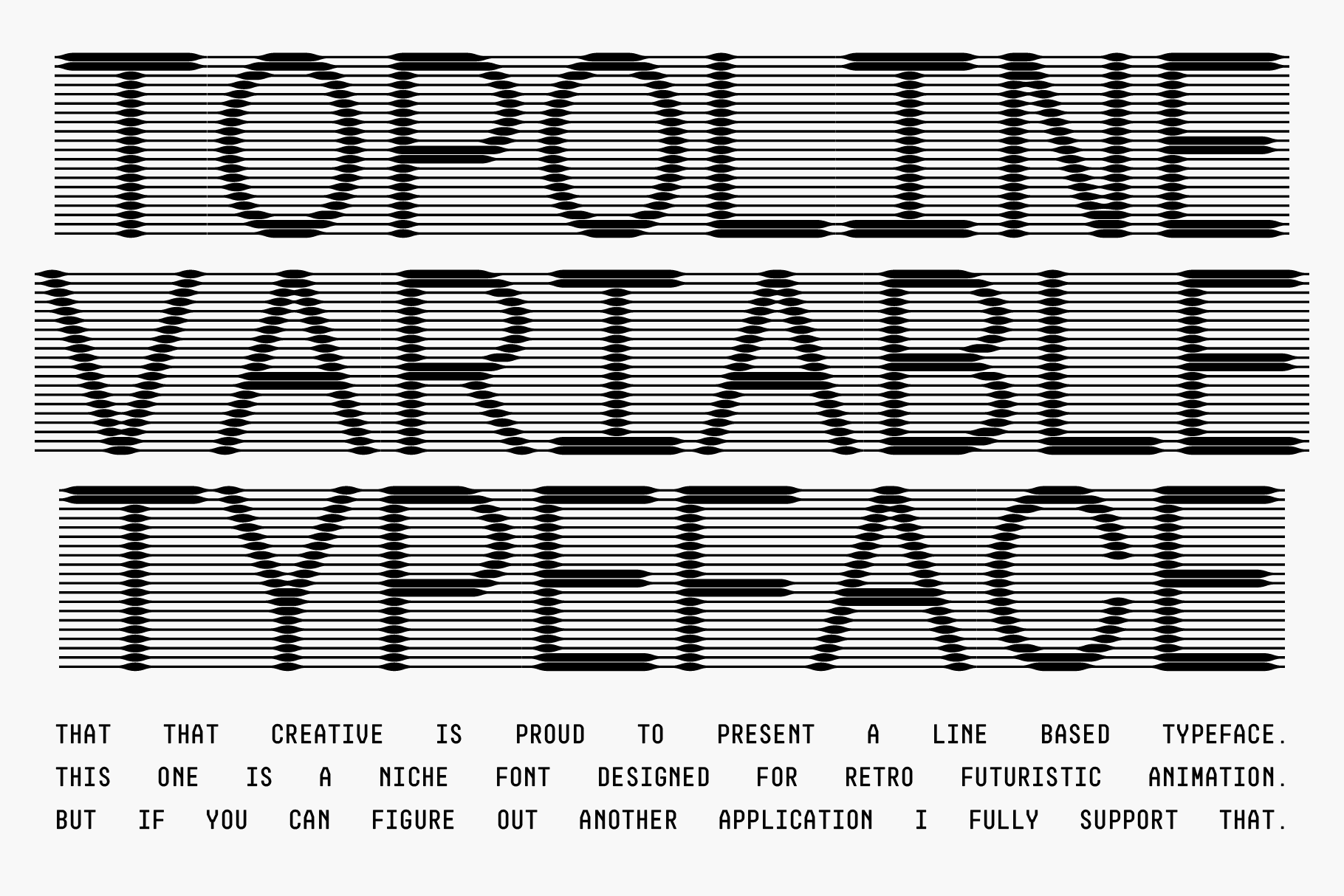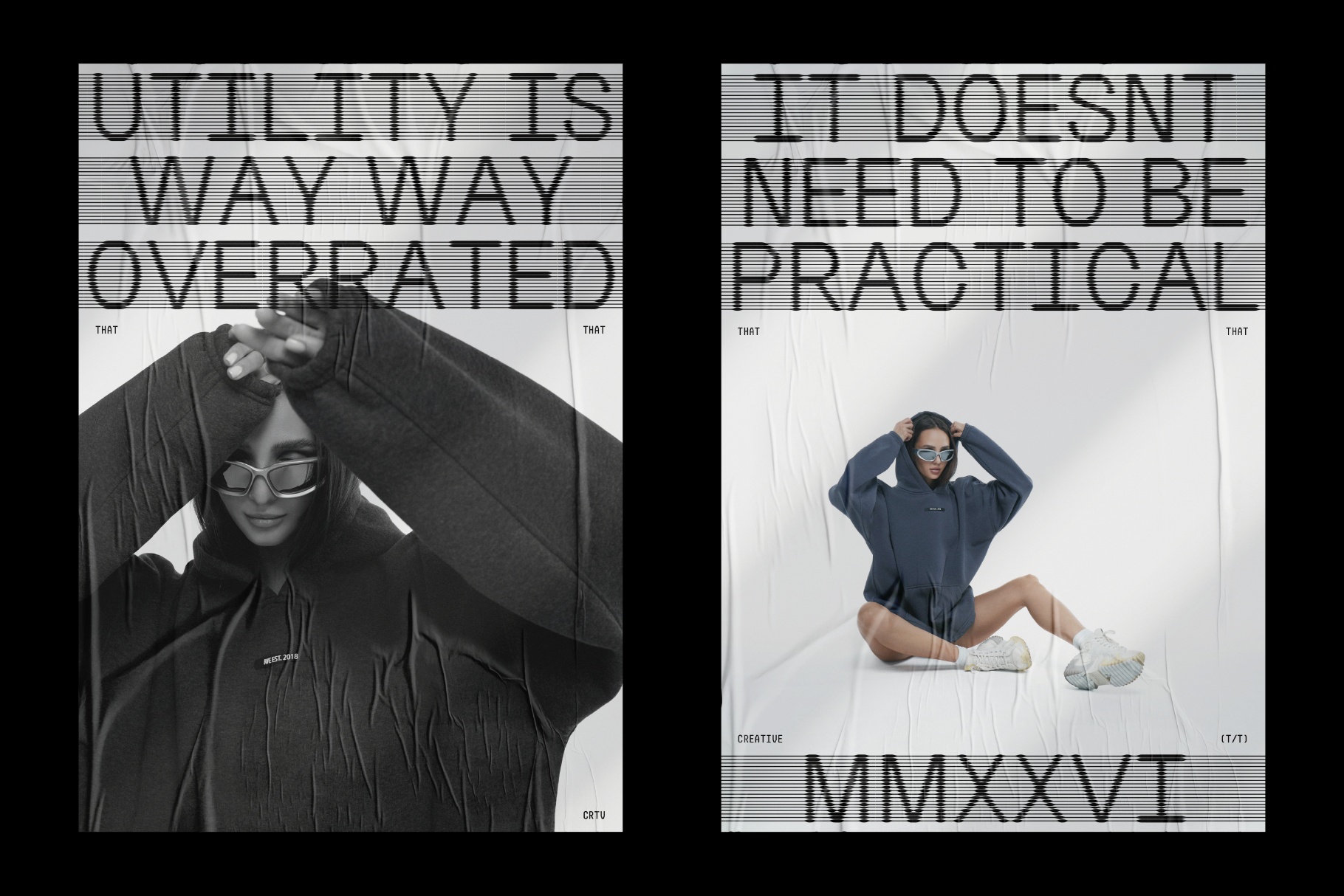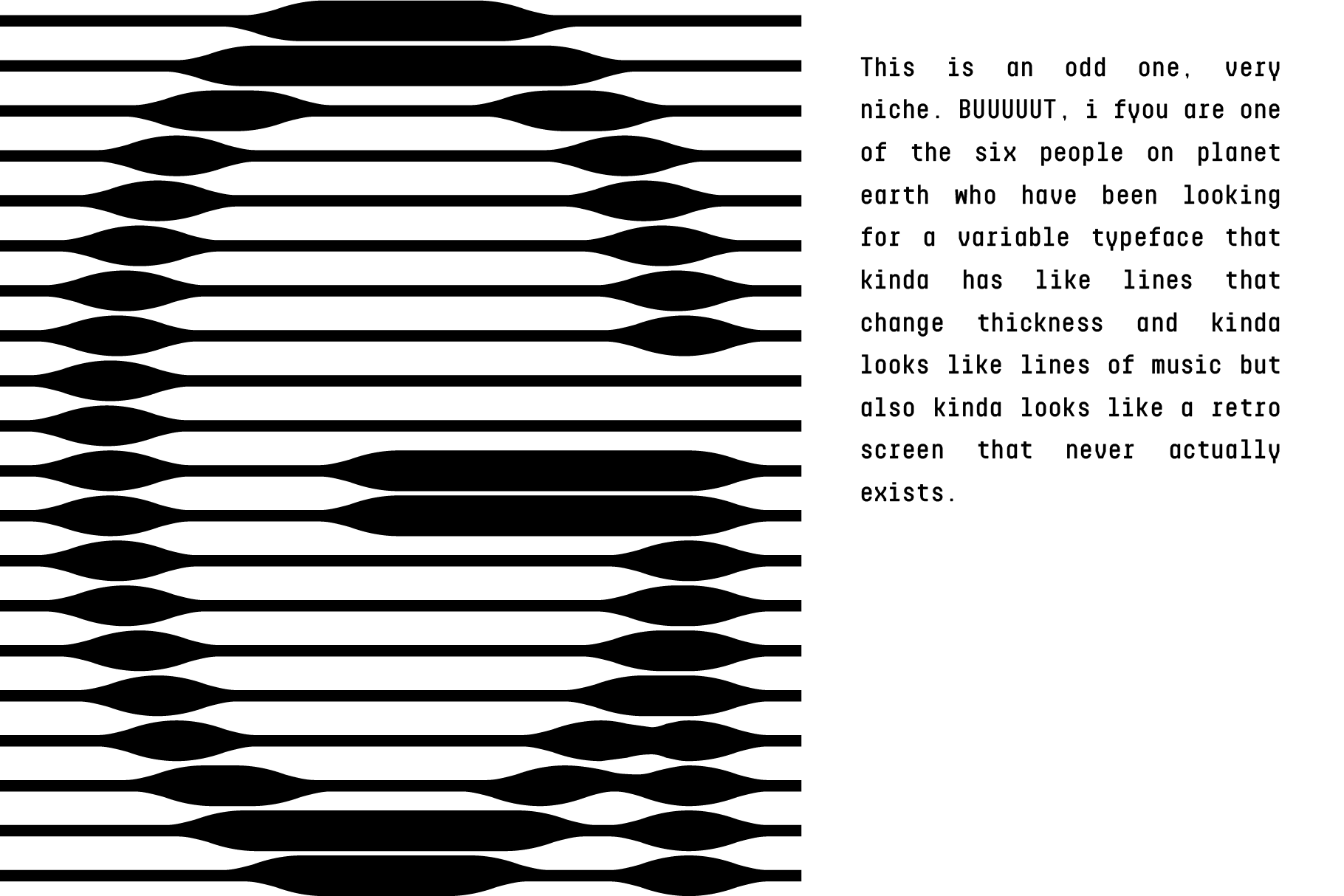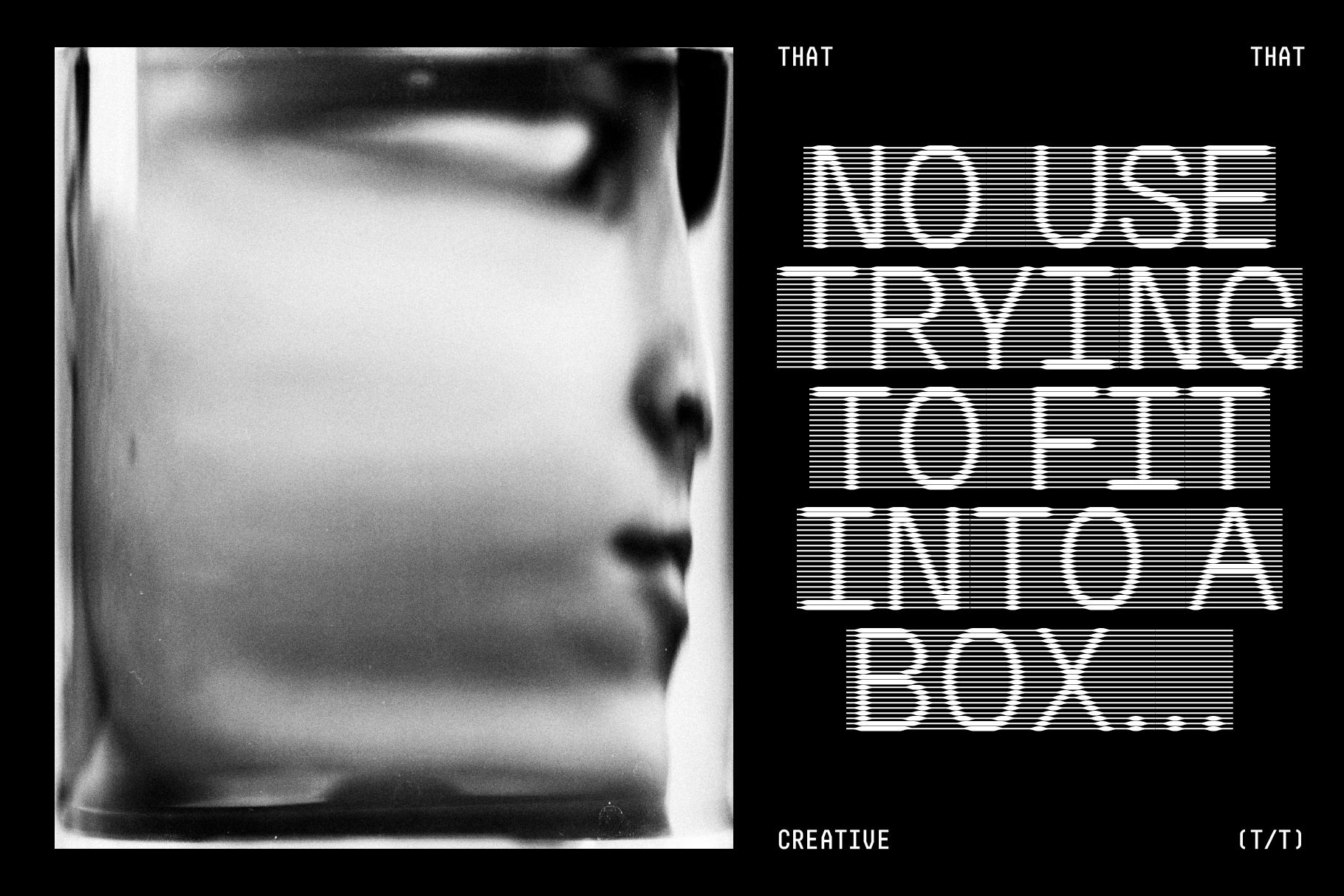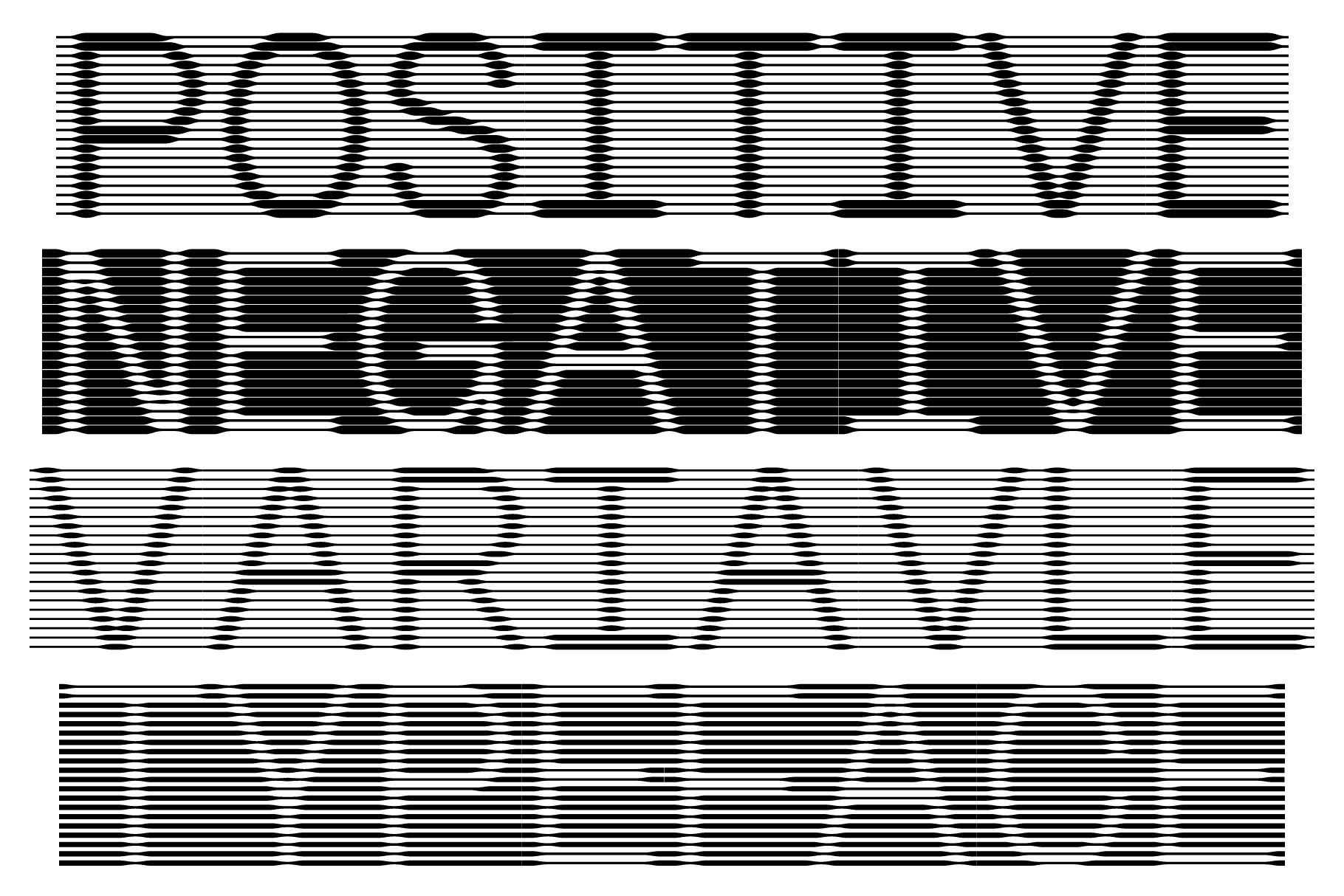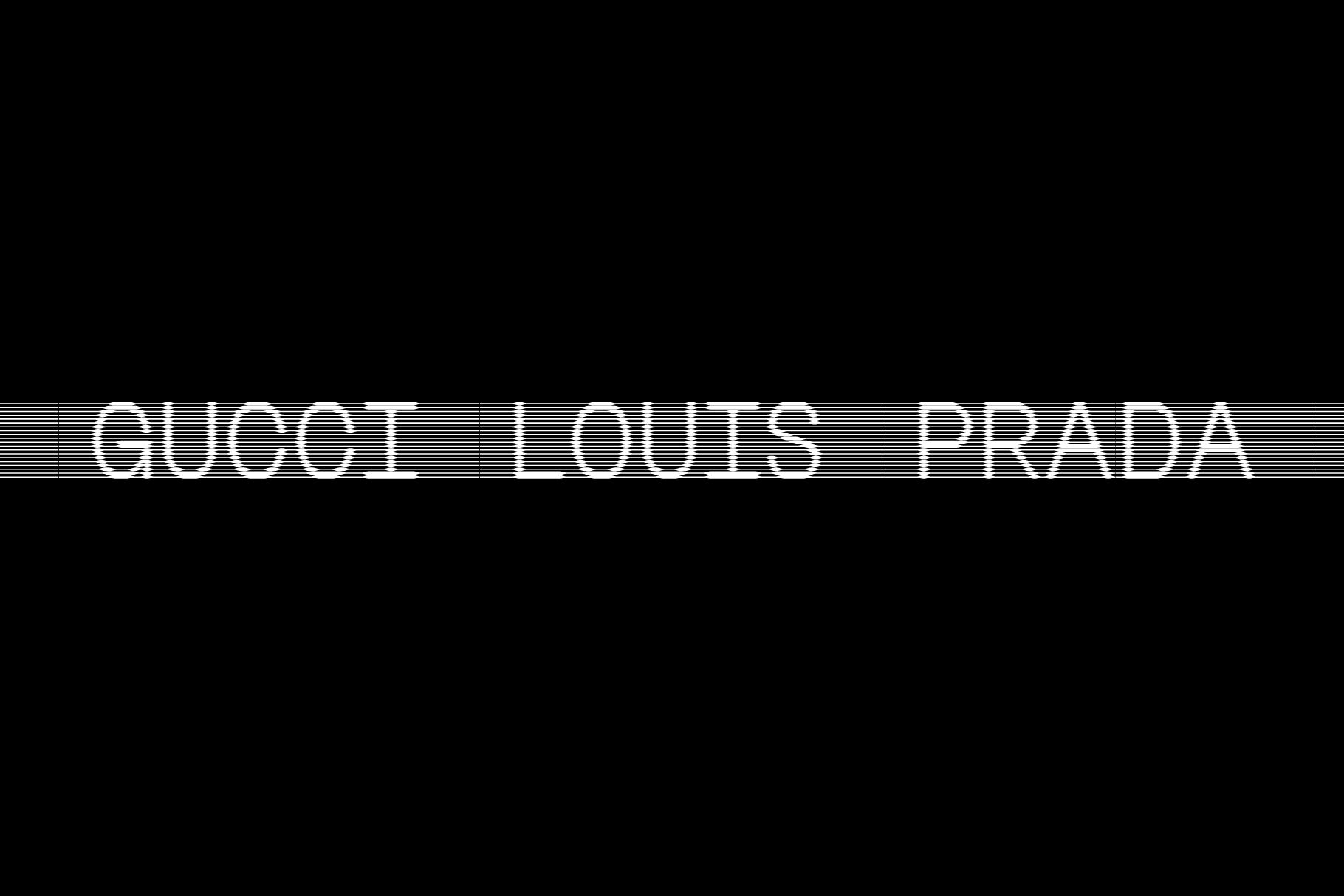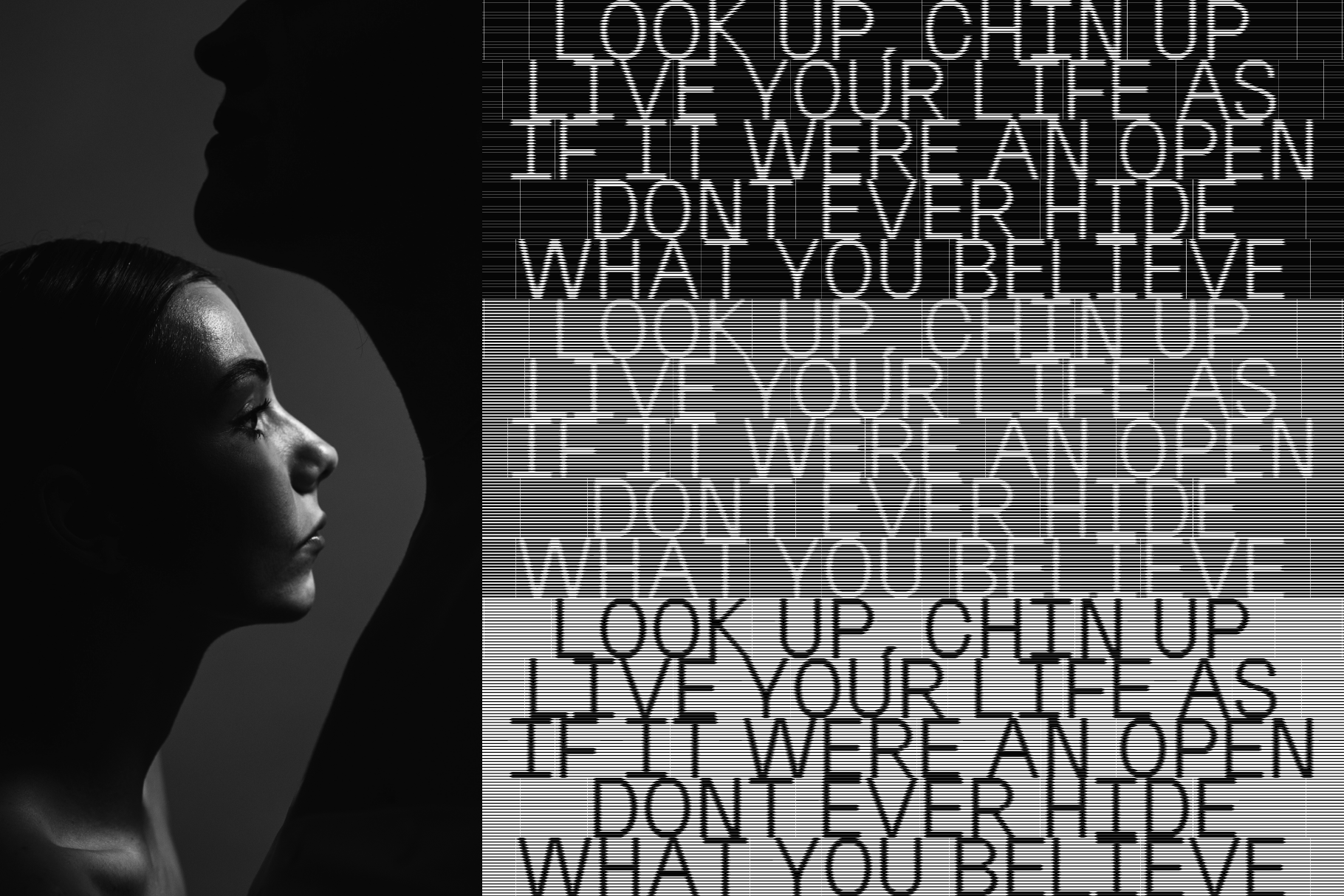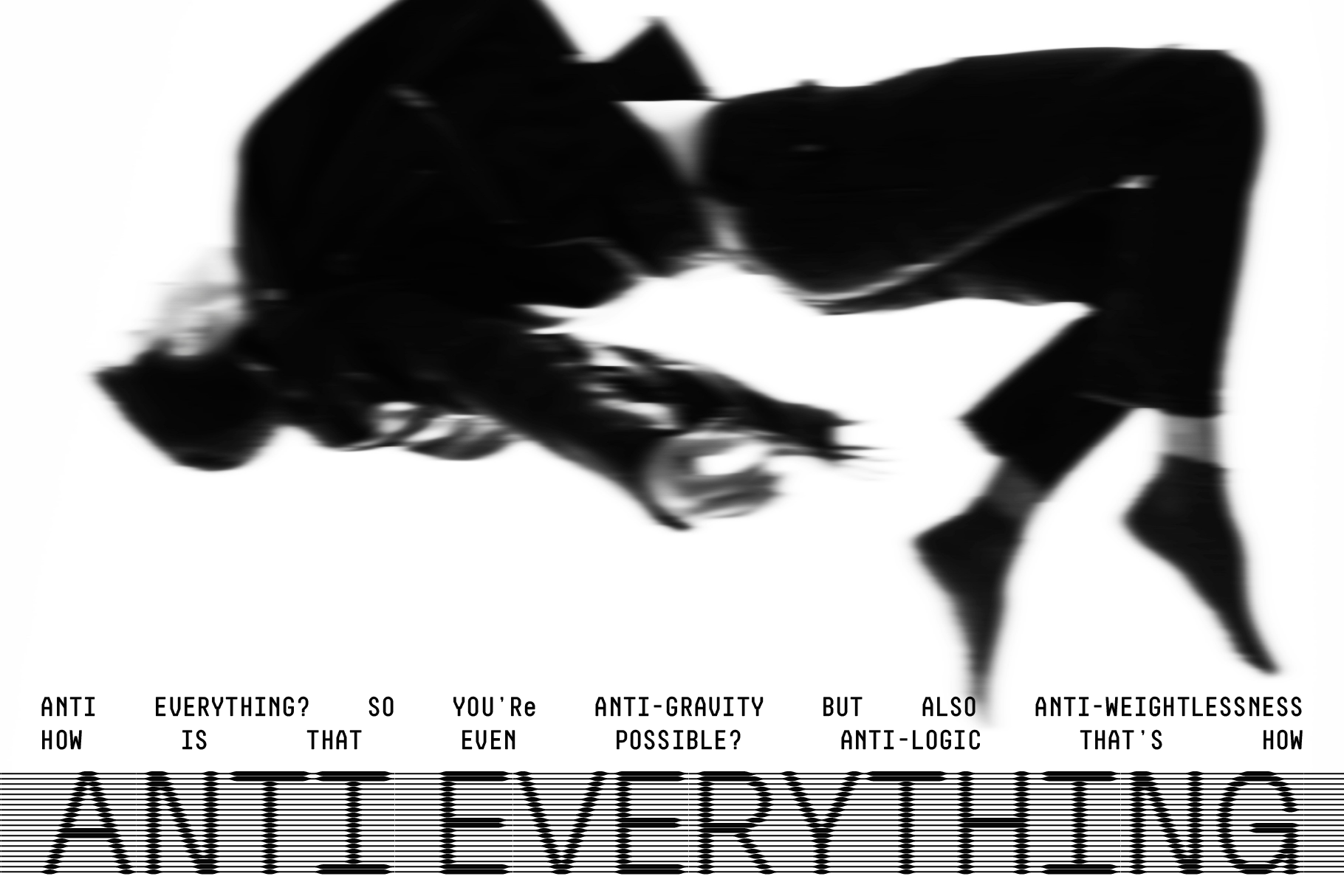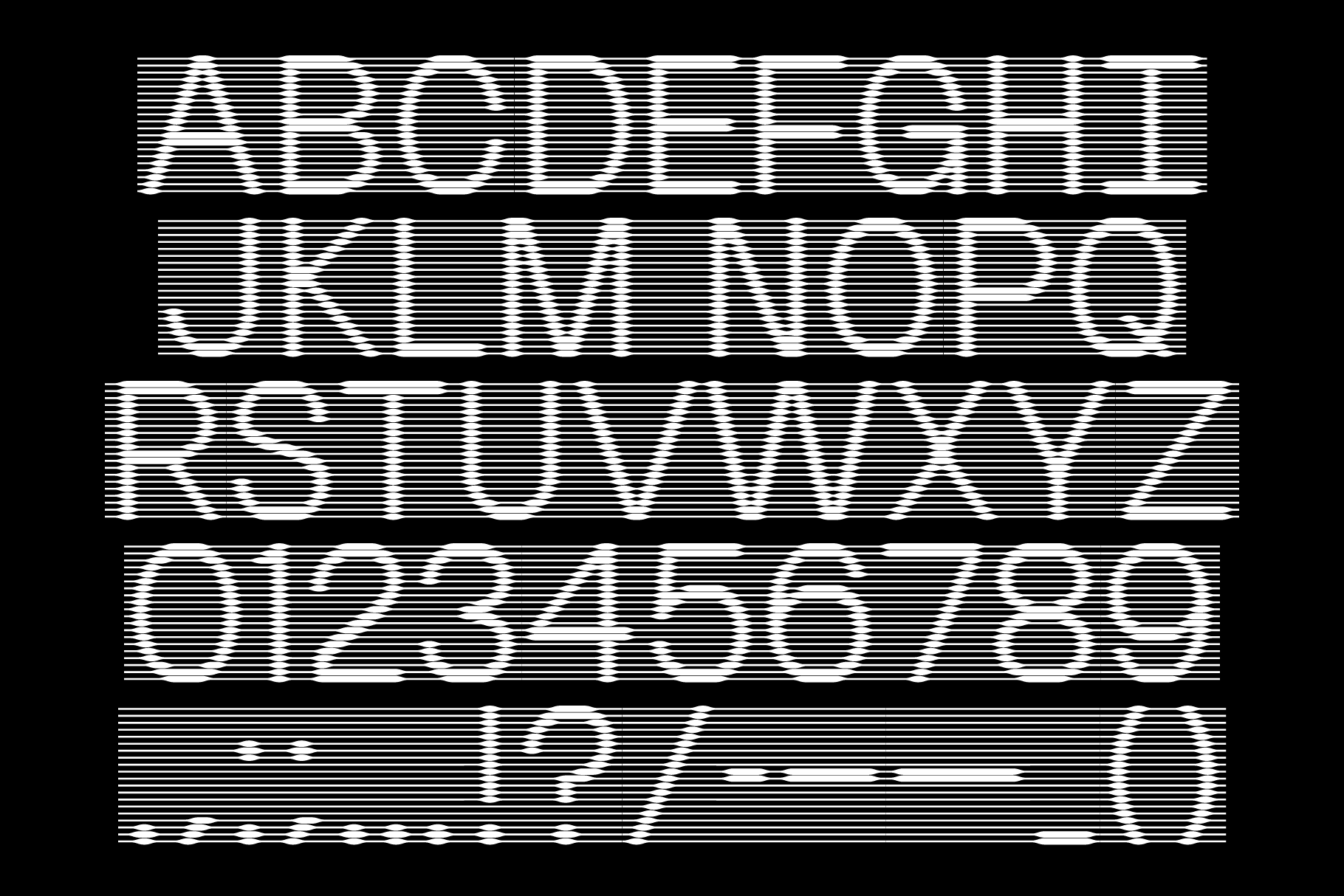
TopoLine - Variable Line Display Font
Topoline stacks dozens of thin horizontal lines and lets them swell and pinch to build each letter, the way an oscilloscope trace or a dying CRT screen renders a signal. A variable weight axis controls how far those lines bulge, so one file glides from a barely-there wireframe to a dense, almost solid glyph, and five static styles — Empty, Light, Negative, Bold, and Full — lock in fixed points along that range. This futuristic display font reads as circuitry more than type, built for headlines that want a retro-tech, screen-glitch charge rather than a clean grotesk finish.
Topoline works best in short, all-caps settings — movie titles, album art, music visualizers, tech branding, event key art, motion graphics, and retro-futuristic UI mockups.
- variable weight axis, plus 5 static styles: Empty, Light, Negative, Bold, and Full;
- uppercase only;
- numerals and limited punctuation.